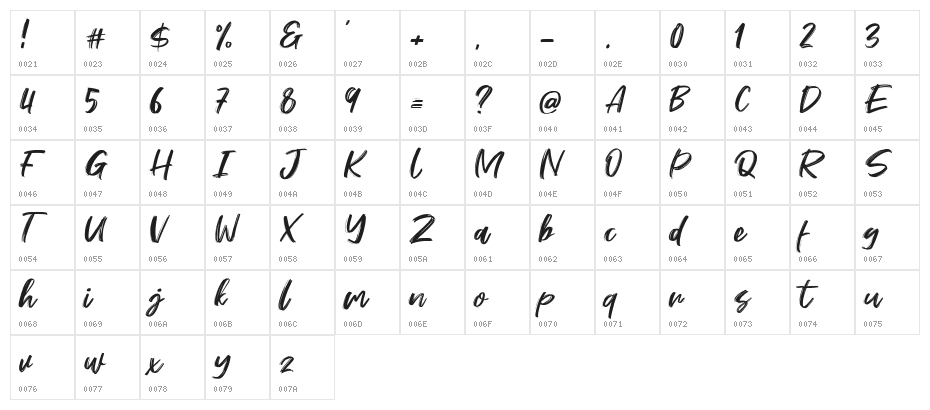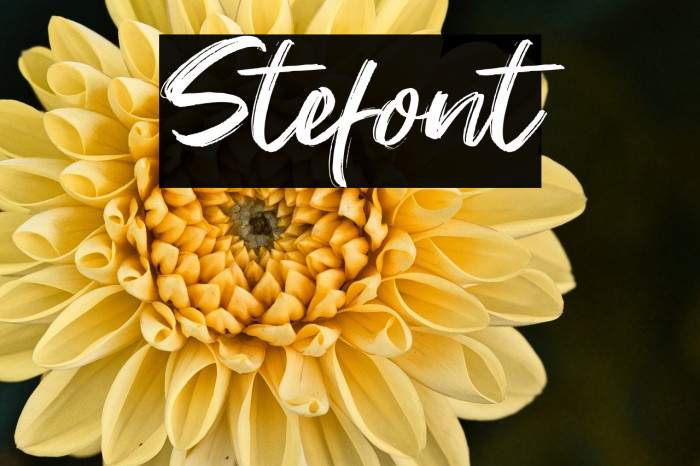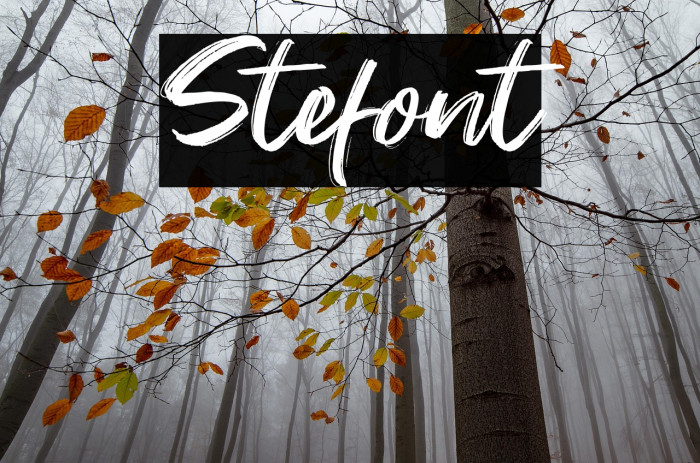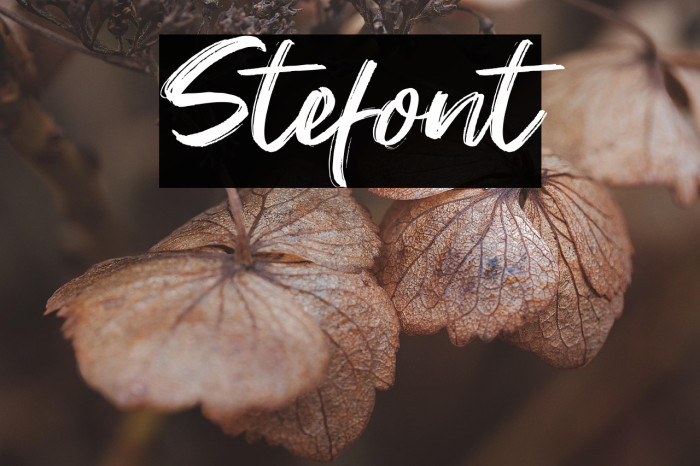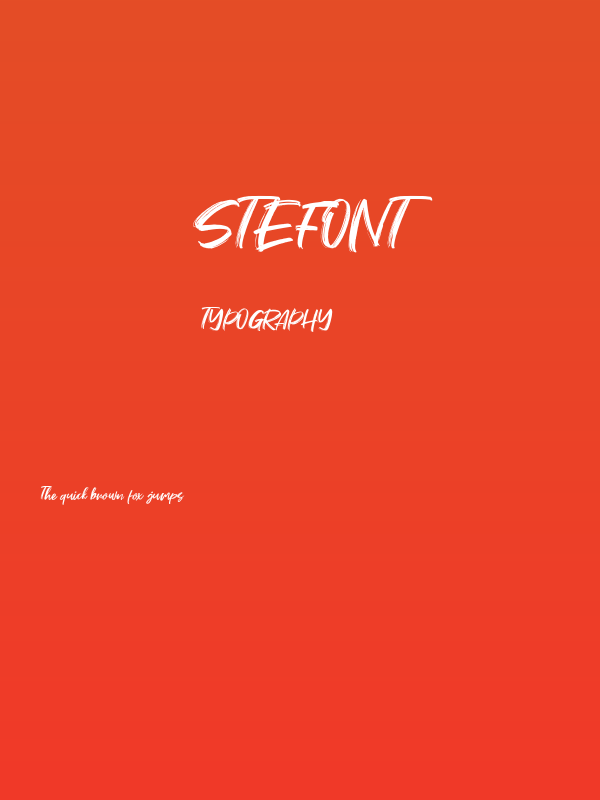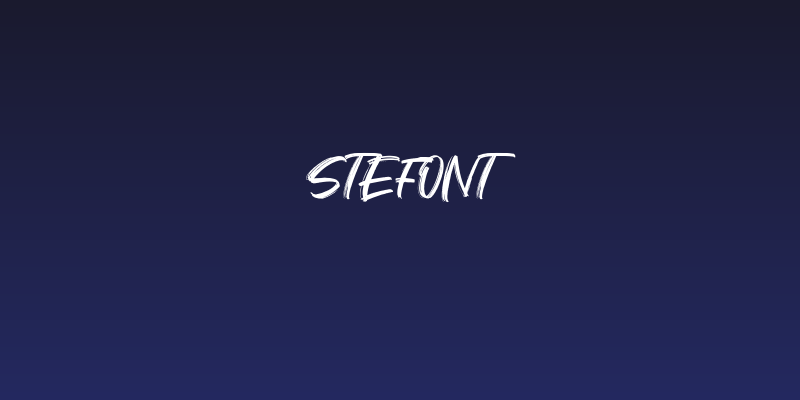
Stefont Font
Stefont Description
This font exhibits a dynamic and expressive handwritten style, characterized by bold, sweeping strokes that convey a sense of energy and movement. The uppercase and lowercase letters are crafted with a brush-like texture, giving them a raw and artistic appearance. The numerals and special characters maintain this lively aesthetic, ensuring consistency across all glyphs. The font's irregularities and variations in stroke width contribute to its organic feel, making it ideal for projects that require a personal touch or a creative flair.
| Use Case | Logos, Headlines, Posters |
| Proposed Projects | This font is perfect for creative projects such as posters, invitations, branding, and social media graphics where a personal and artistic touch is desired. |